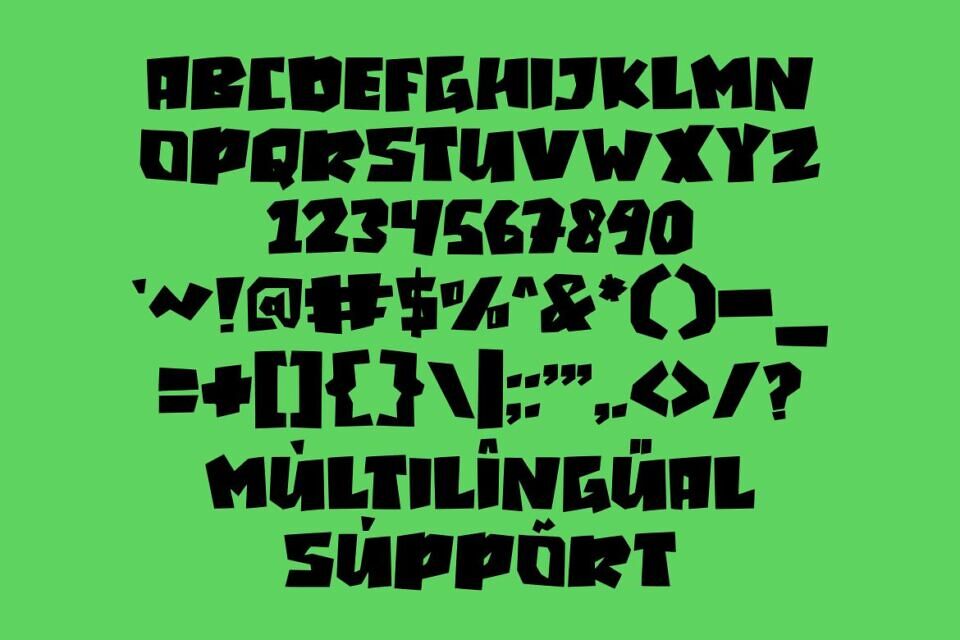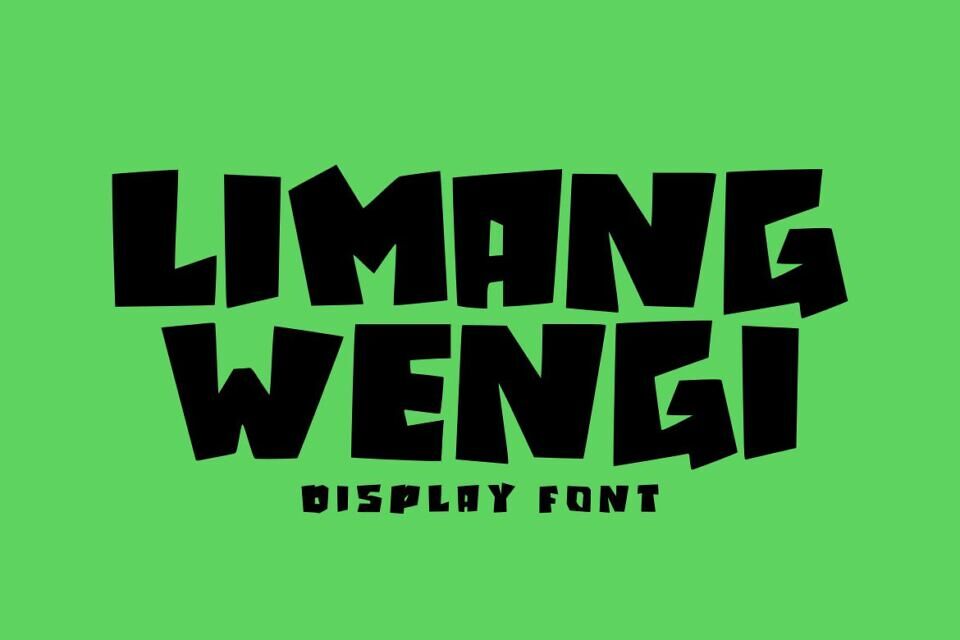
LIMANG WENGI is a bold, modern typeface inspired by Javanese cultural elements, blending traditional aesthetics with contemporary design. Its name, meaning “Five Nights” in Javanese, reflects a mystical vibe, making it ideal for striking headlines, posters, and branding.
Created with sharp, geometric shapes, it offers a unique fusion of elegance and strength. Available in uppercase, LIMANG WENGI supports multilingual characters and is perfect for projects needing a cultural yet modern touch.